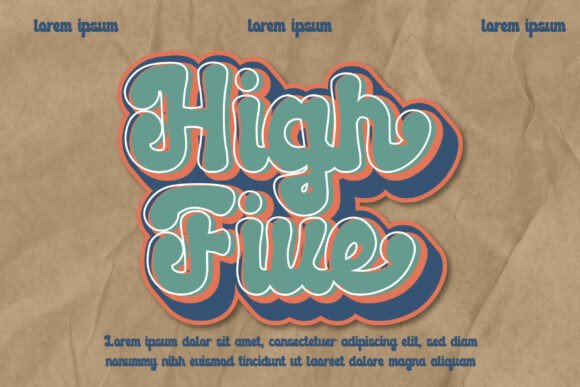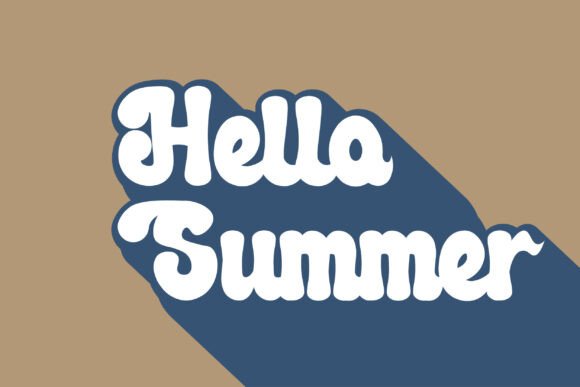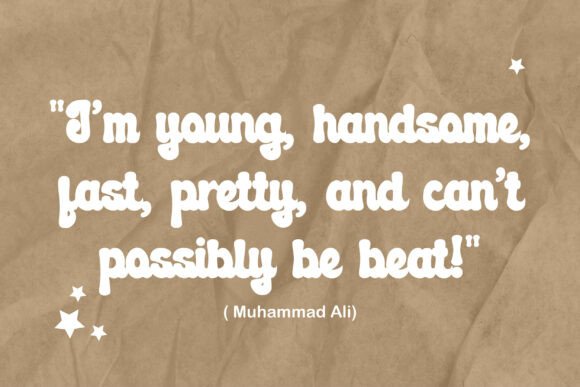
The Timeless Charm of Antique Grunge: A Designer’s Delight
I’ll never forget the time I was working on a vintage-themed wedding invitation project, and I just couldn’t seem to find the perfect font. My client wanted something that would transport their guests back in time, but I was stuck in a design rut. That’s when I stumbled upon Antique Grunge, a timeless, vintage-style script font that instantly captured the essence of a bygone era. In this article, I’ll share my journey with Antique Grunge, and explore its features, uses, and alternatives.
An Honest Review of Antique Grunge
- ✨ Timeless and elegant design that adds a touch of sophistication to any project
- ✅ PUA encoded for effortless use of intricate glyphs and swashes
- 💫 Perfect for a variety of design applications, from logos to social media posts
- 🎉 Easy to use and customize, even for those without extensive design experience
While Antique Grunge is an exceptional font, there are a few minor quirks to be aware of:
- 🤔 Some users may find the font’s vintage feel too ornate or over-the-top for certain projects
- ⚠️ The font’s intricate glyphs and swashes may not display correctly on all devices or platforms
The Backstory of Antique Grunge
Antique Grunge was inspired by the classic typography of the early 20th century. Its designer, a typography enthusiast, sought to create a font that would evoke the elegance and sophistication of a bygone era. With its intricate glyphs and swashes, Antique Grunge is the perfect choice for designers looking to add a touch of vintage charm to their projects.
| Author | Patlot Digital.Studio |